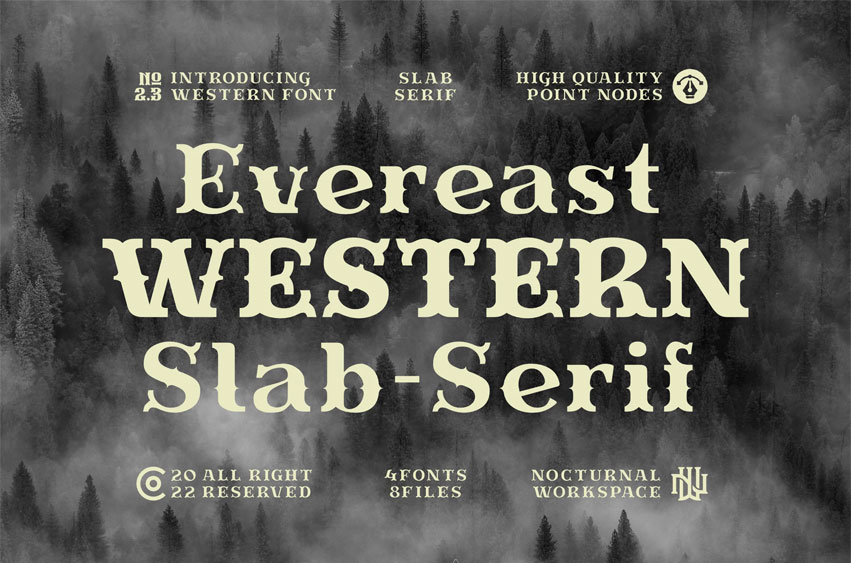
Evereast Western Slab Font serif is a suitable typeface for various purposes like logotype, signage, label, poster, dropcap, titles, letterhead, book cover, etc.
- 8 fonts stylist Outline, Bold, Regular, Light, Italic
- Features: Ligatures Contextual, Salt.
- Includes a range of multilingual characters.